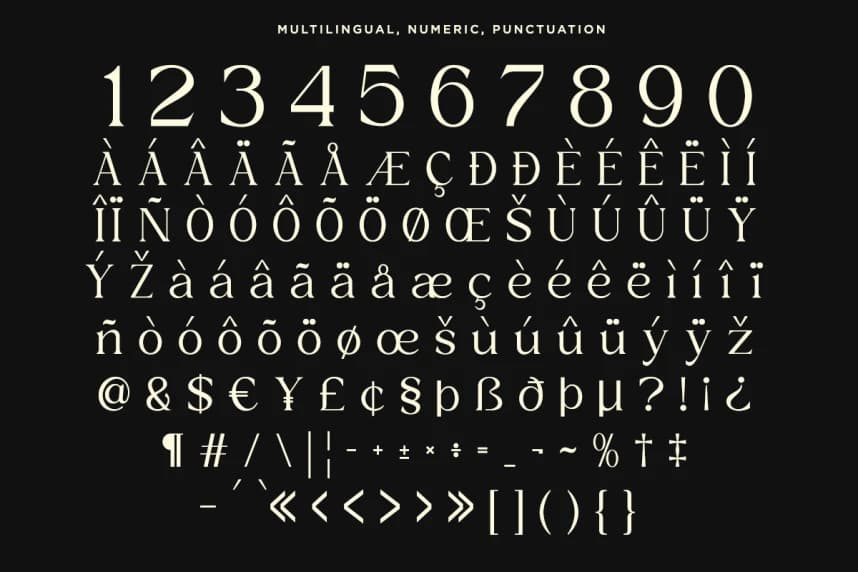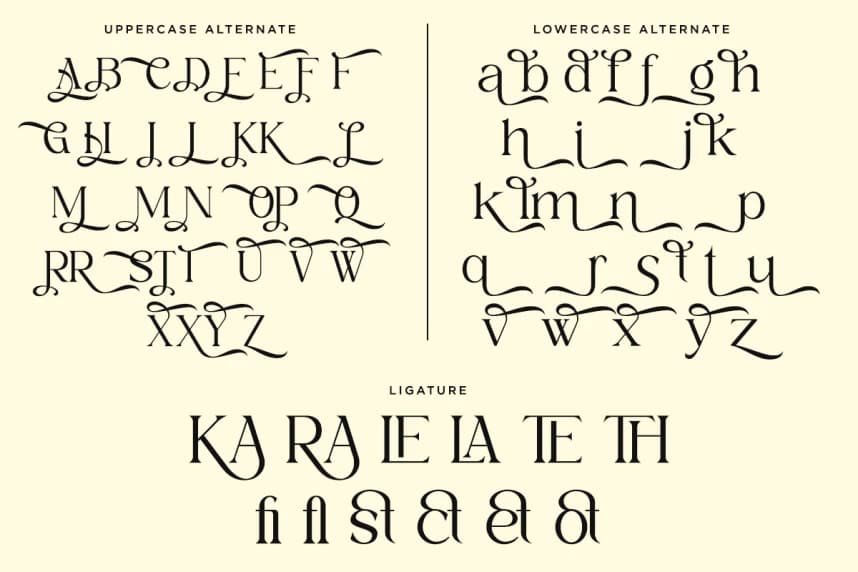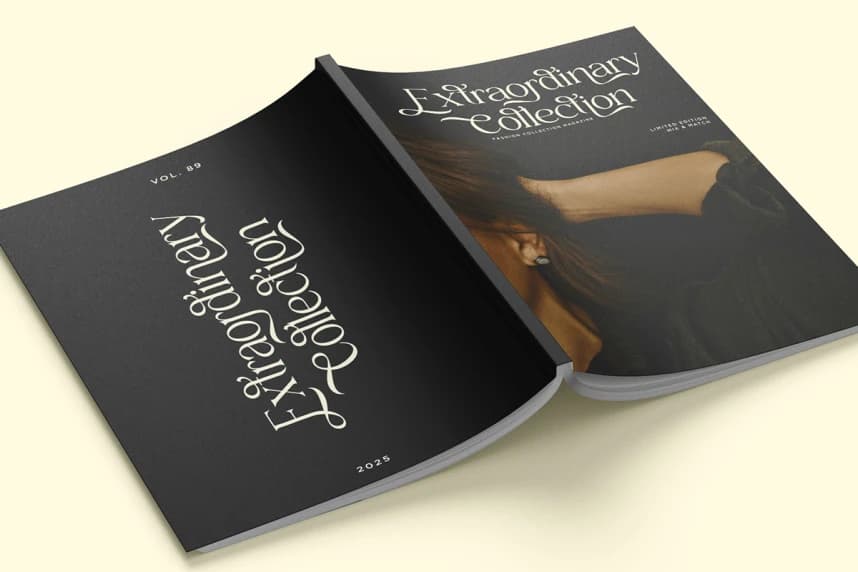
Xaviera DEMO Font
Xaviera DEMO Font – a font that captures the perfect harmony between modern elegance and timeless sophistication. Designed to enhance premium branding, Xaviera offers refined curves and stylish details, making it ideal for logos, invitations, and upscale marketing materials,